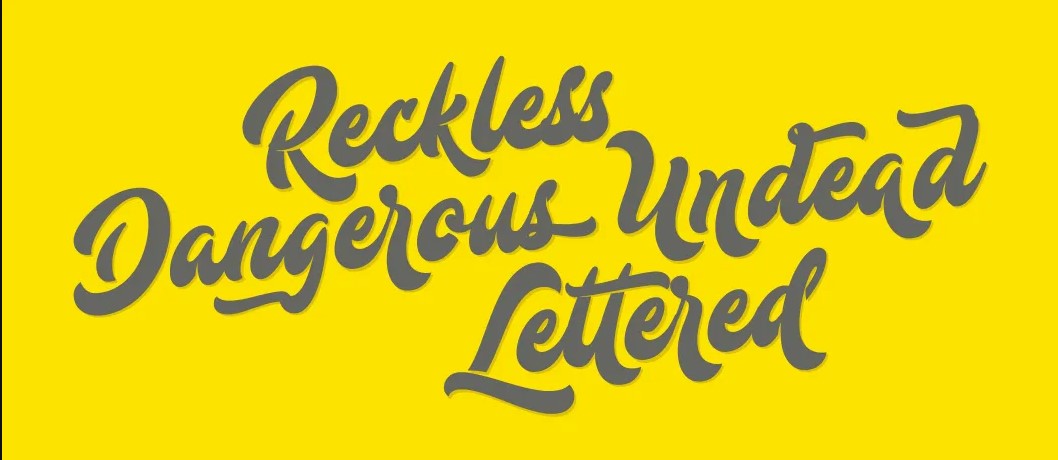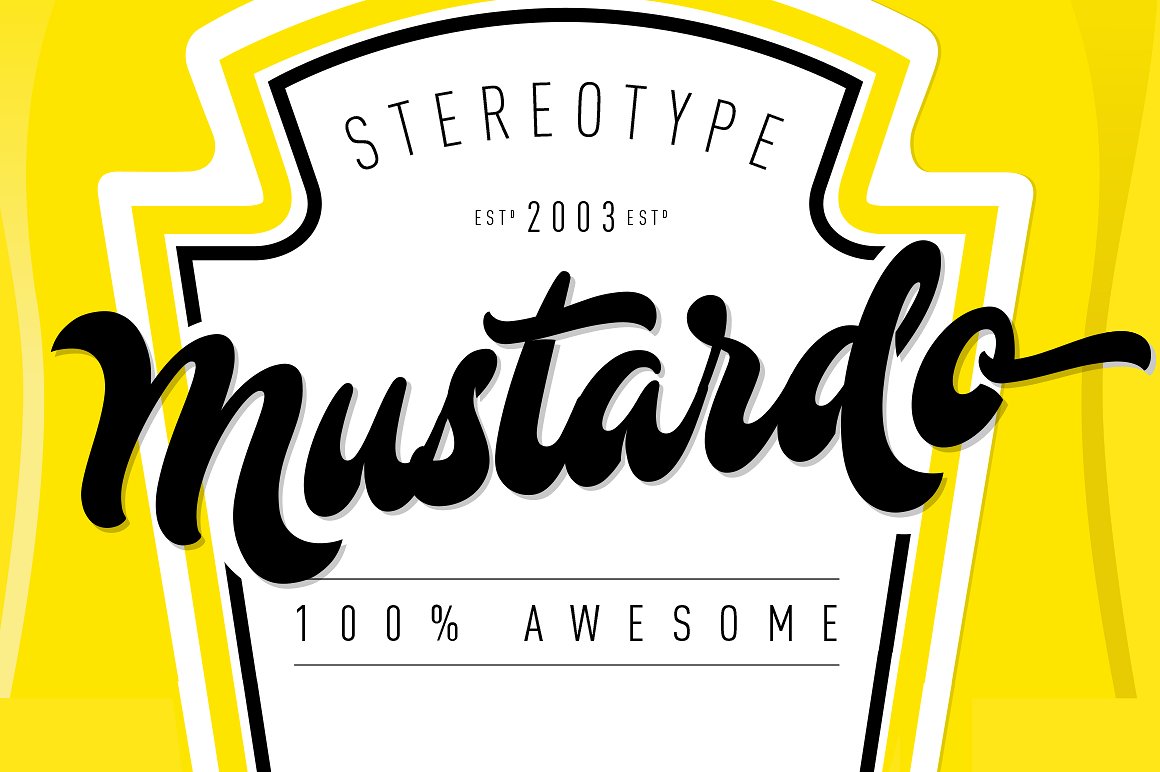
Mustardo Script Font
Mustardo Script Font falls under the class of sensitive fonts. This is by far similar to the Rodger and the Truckin font and it’s far available for free. It‚Äôs a few unique extra splendid script font. Together with every day, moderate, and formidable alternatives, it’s far the extremely good choice for a unique record look.